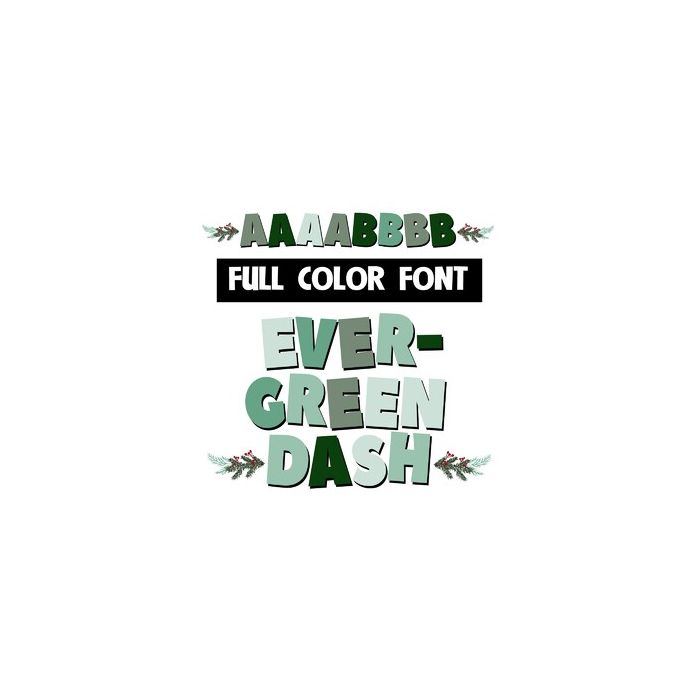
This full-color font features a mix of bold green sans serif lettering and a cute spray of evergreen needles and berries. There is a an alt version w/ secondary colors available through your system's or Silhouette's glyph map.